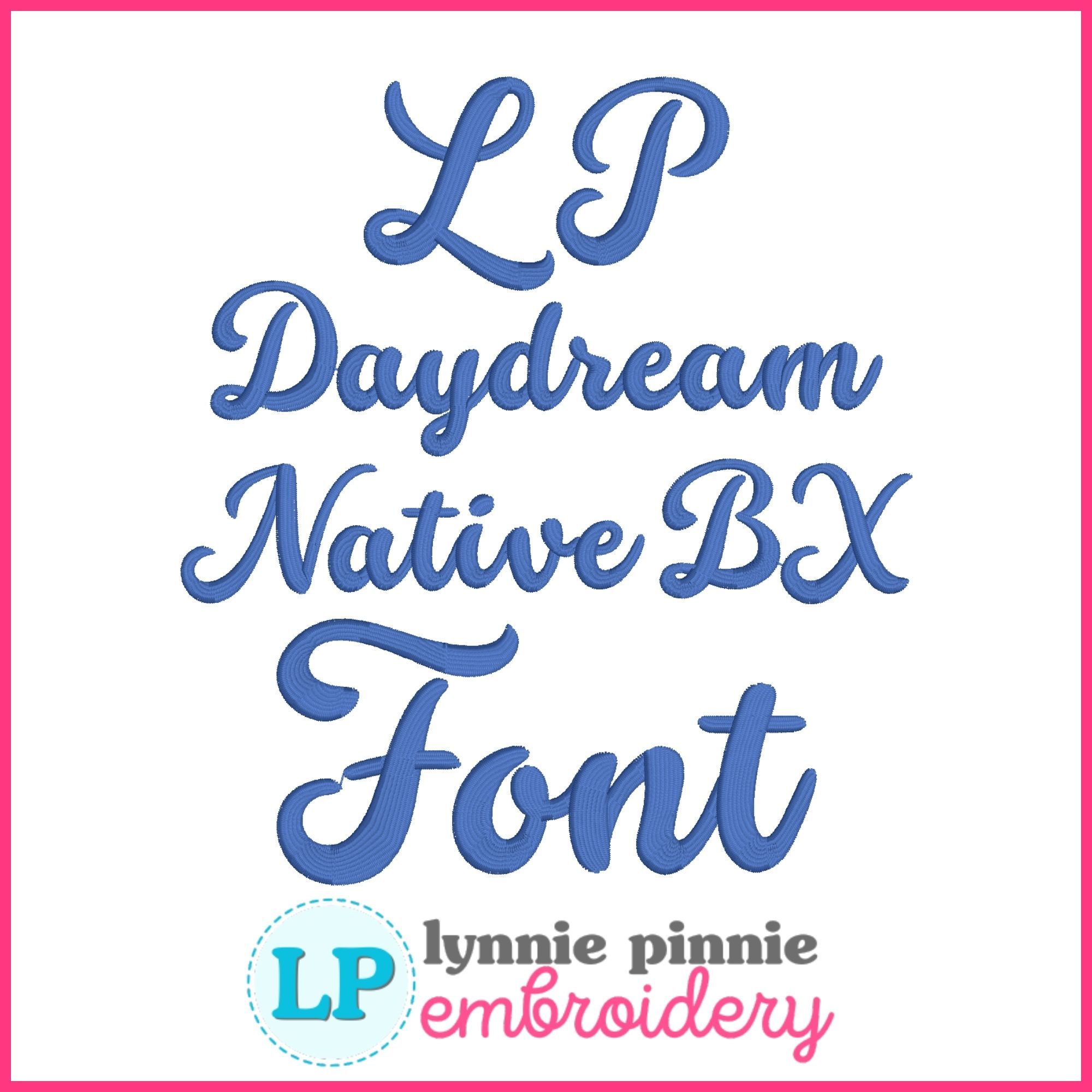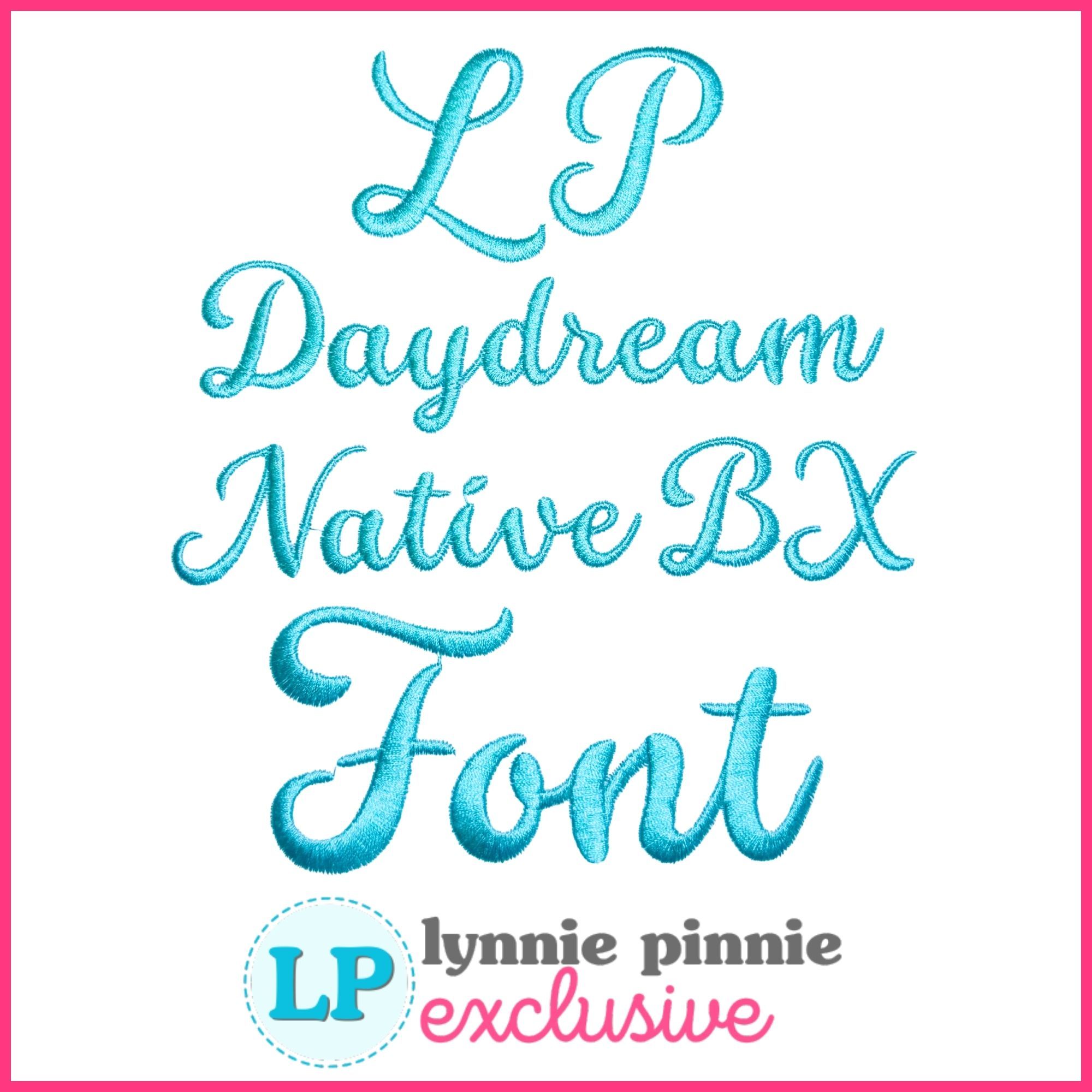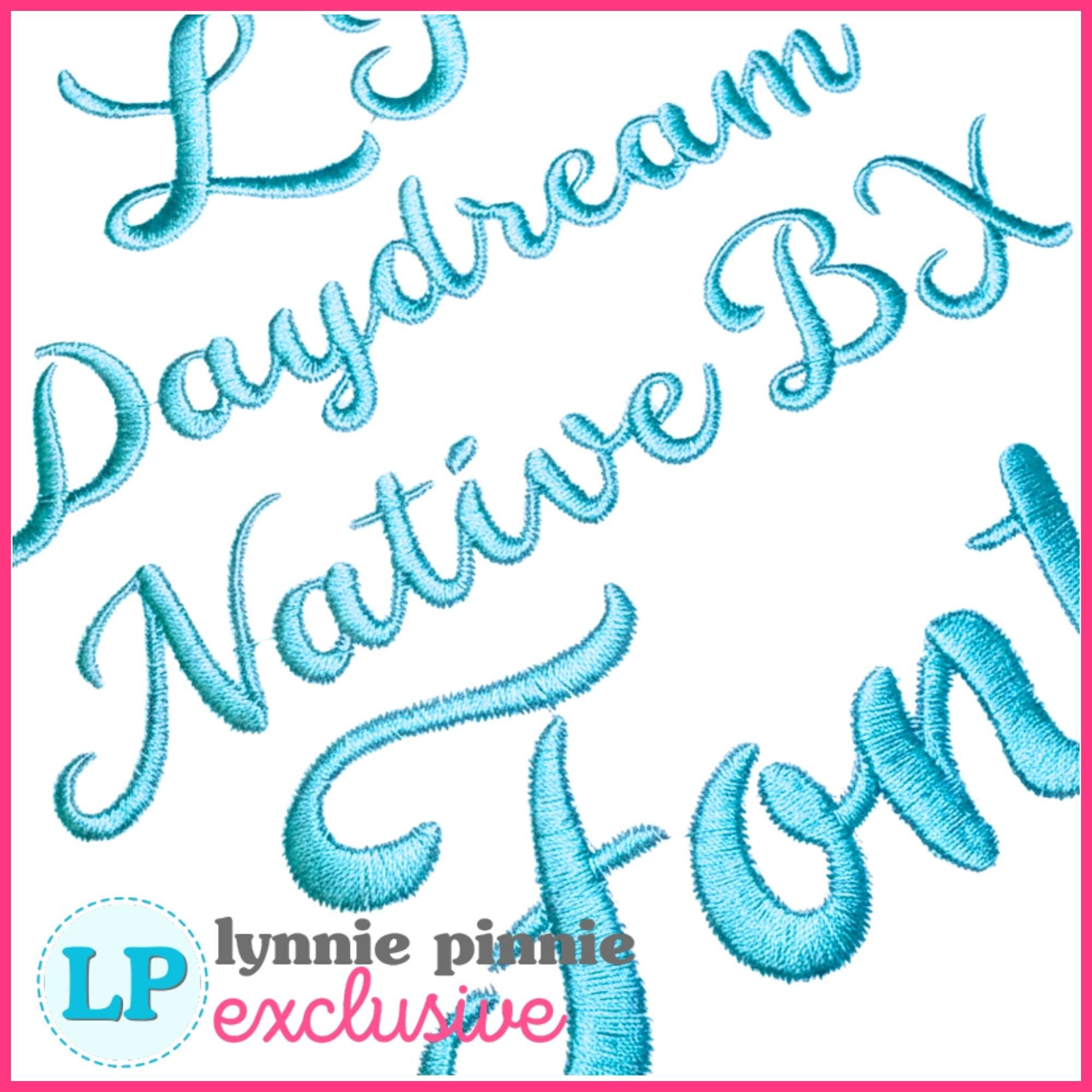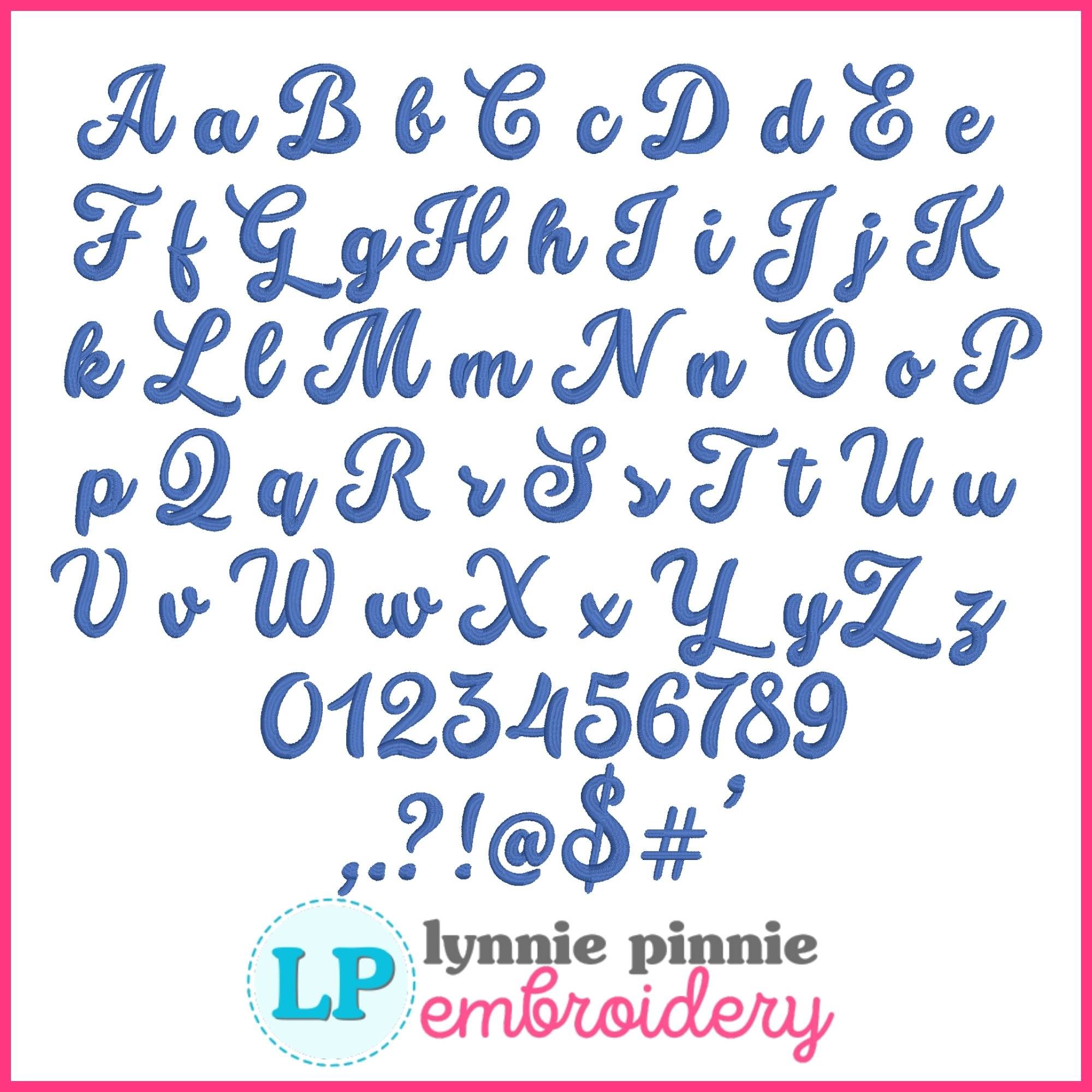
Daydream Satin Stitch Machine Embroidery Font – 9 Sizes + Scalable Native BX File
Add a soft, elegant touch to your projects with our Daydream Satin Stitch Font! This flowing script machine embroidery font features a smooth, classic style that’s perfect for names, monograms, children’s items, boutique apparel, gifts, and personalized projects.
This font includes uppercase and lowercase letters, numbers, and punctuation, along with multiple sizes for maximum versatility across a wide range of embroidery projects.